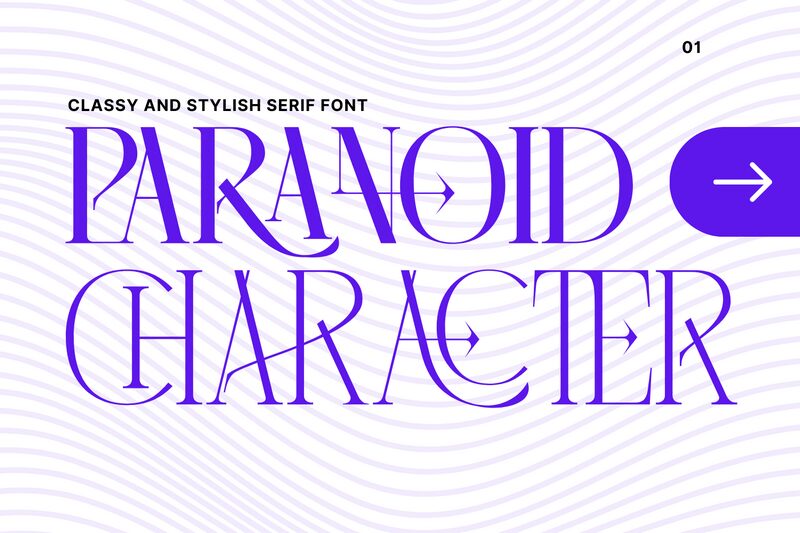
Paranoid Character font by 177Studio is a decorative serif font with vintage-inspired and art deco elements. Its elegant and theatrical appearance makes an impact at first sight demanding attention. It combines straight lines with curves, thin and thick strokes, multiple serifs in one letter at times, in addition to other ornamental detailing.